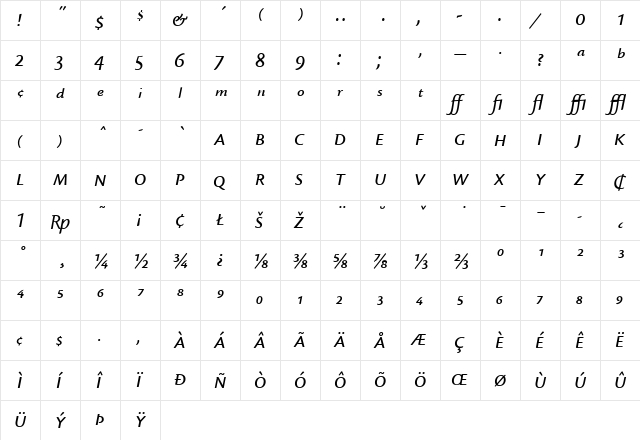
Cronos MM Regular
Design Context for Cronos MM Typeface
Cronos MM offers clean, dependable letterforms without strong stylistic allegiance, making it a practical choice for designers who need flexibility.
Pro Tip: Pair Cronos MM with a font of contrasting weight or personality to build a more expressive typographic hierarchy.